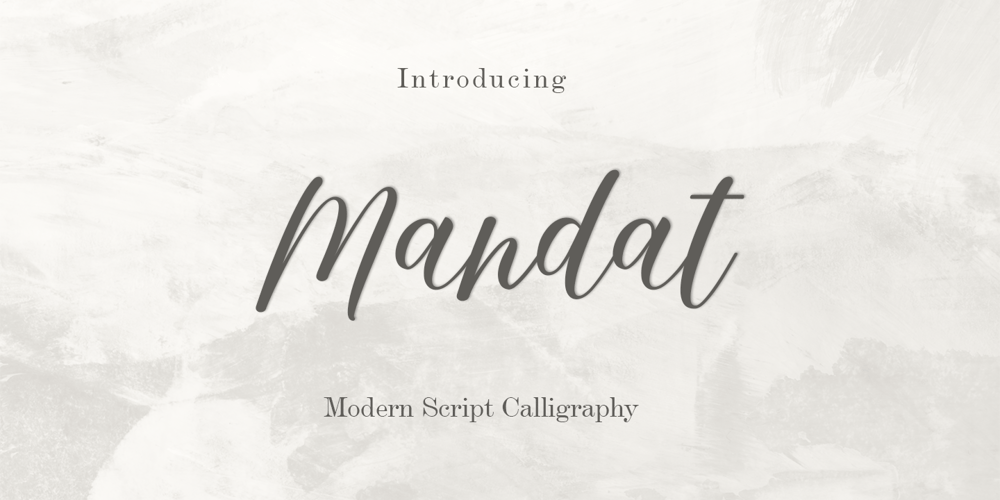
Mandat Font Family was designed by Amar Lettering and published by Amarlettering. Mandat contains 1 styles and family package options. Step into a whimsical universe of design with Mandat Script, a delightful interpretation of modern calligraphy. Embodying a sense of joy and subtle elegance, this flowing script font stands out with its contemporary charm. Without a doubt, Mandat Script enriches your designs with a mystic flavor of magic. Immerse yourself in the aesthetics of typography.